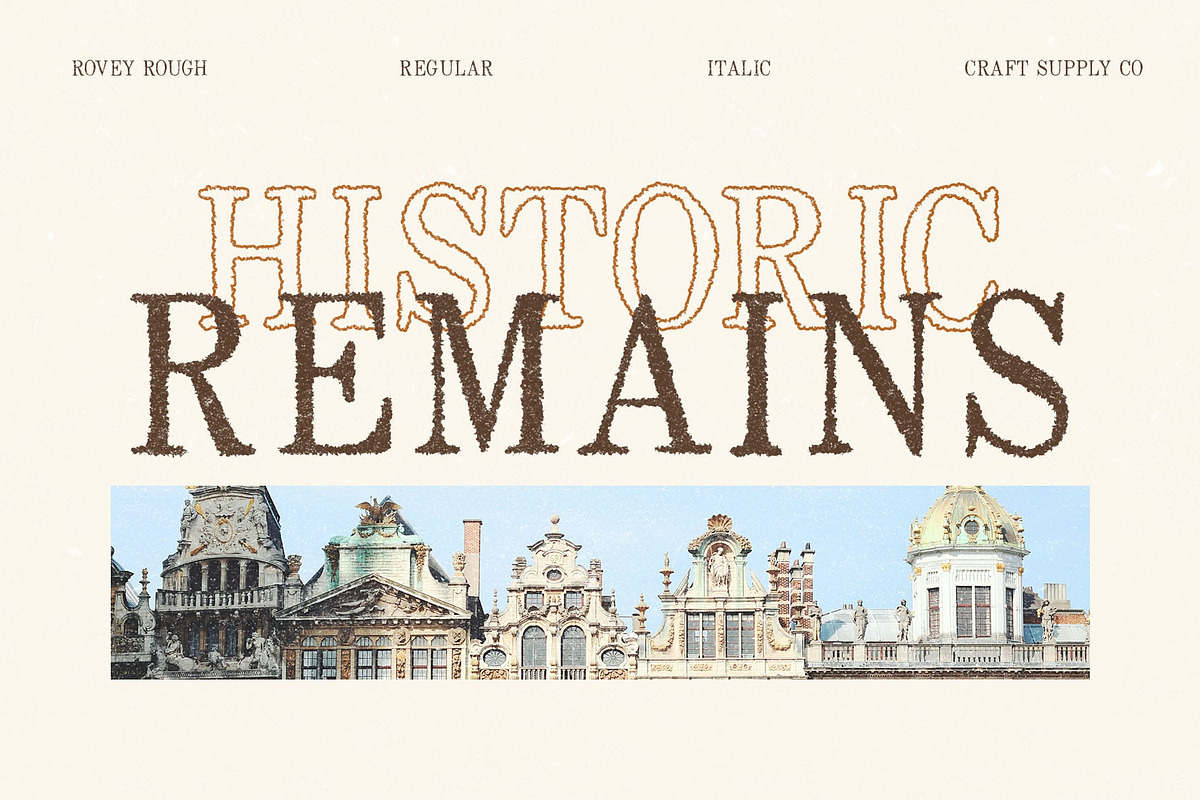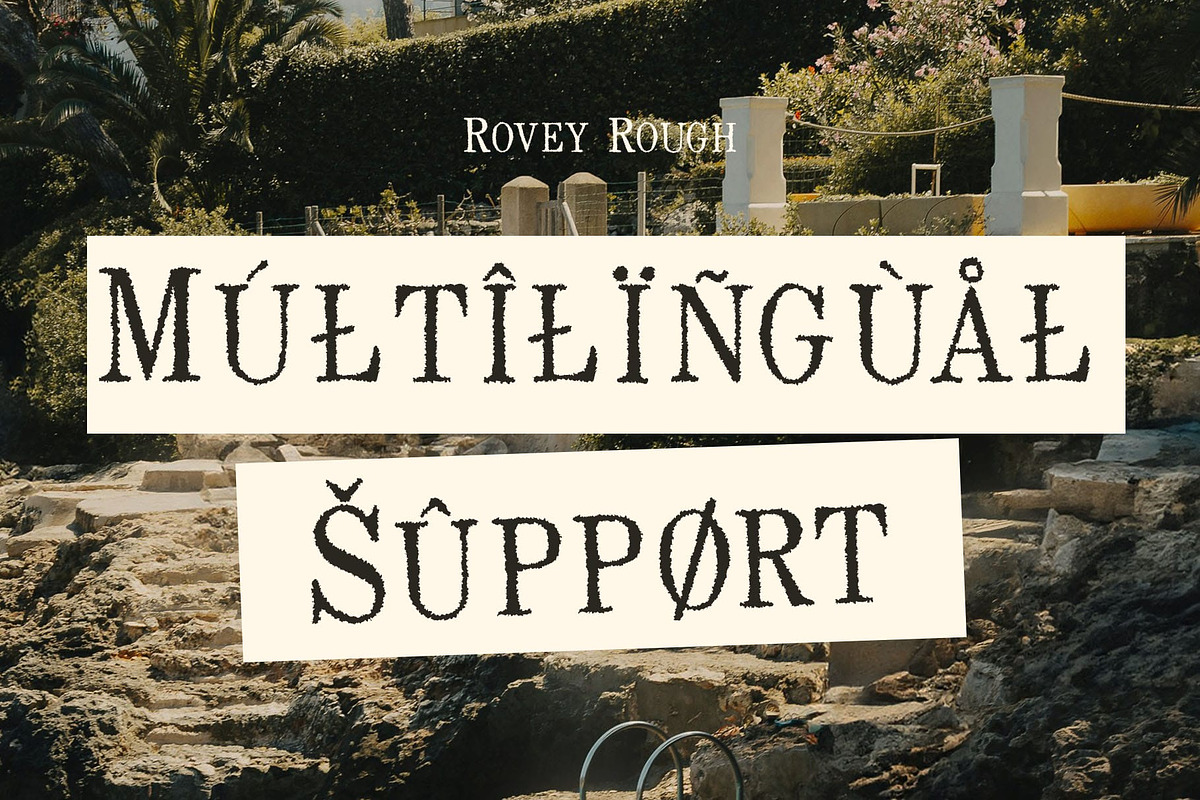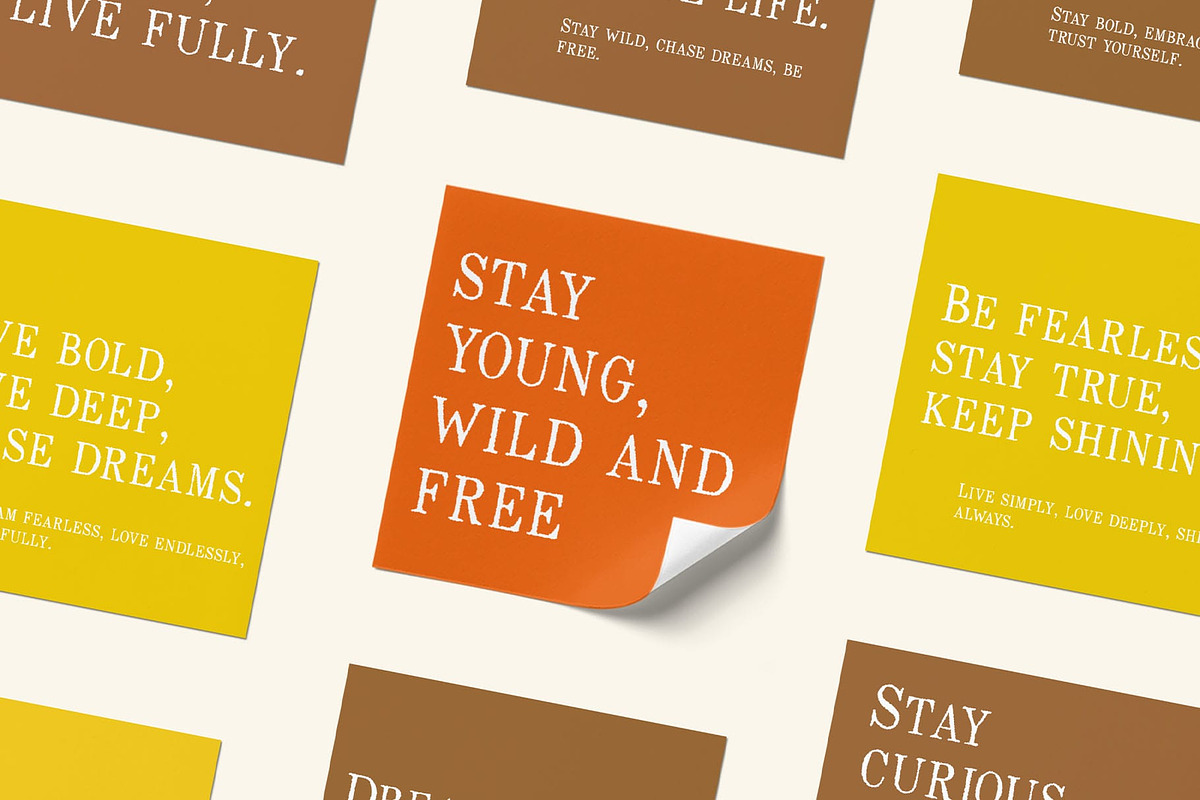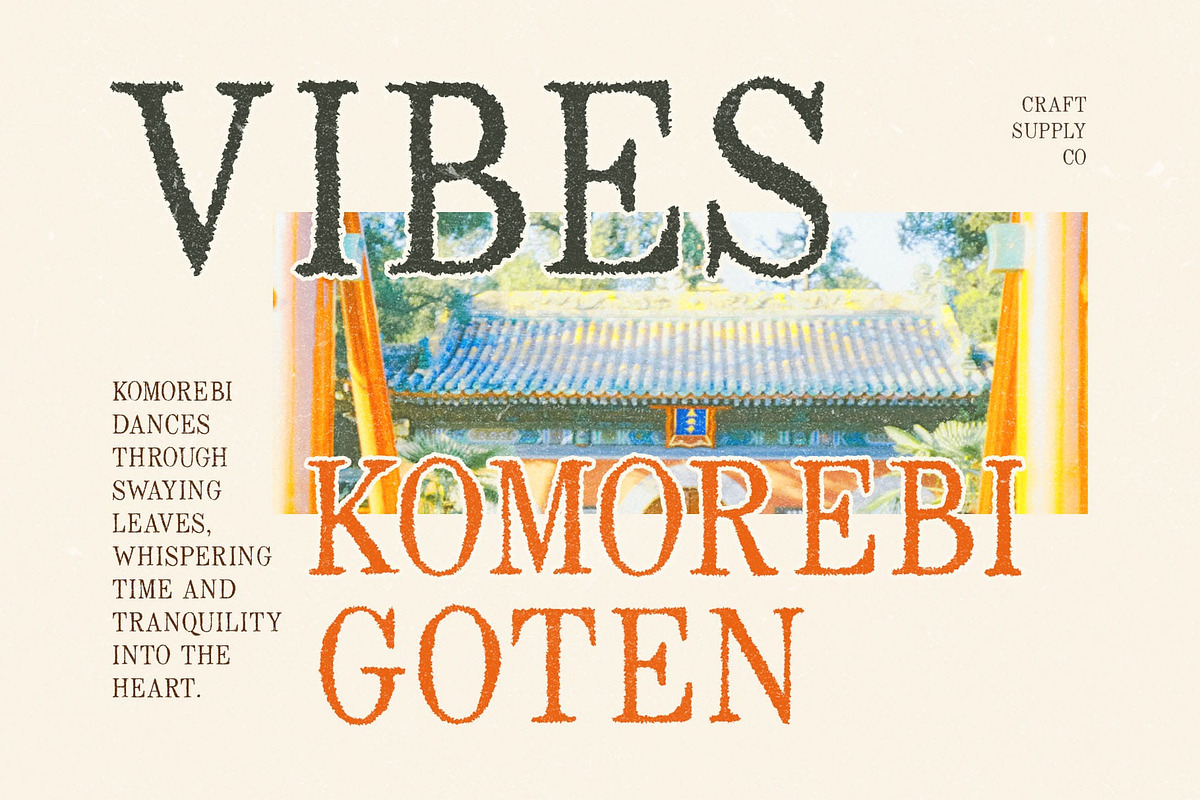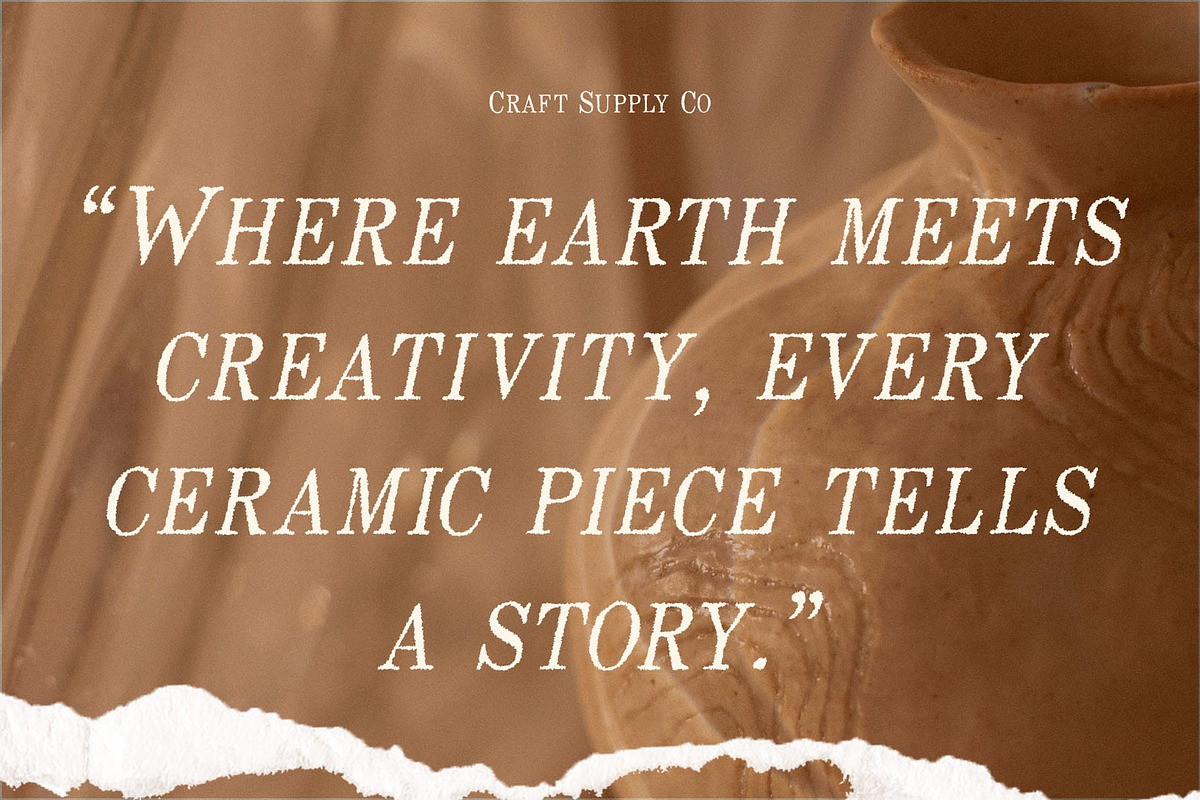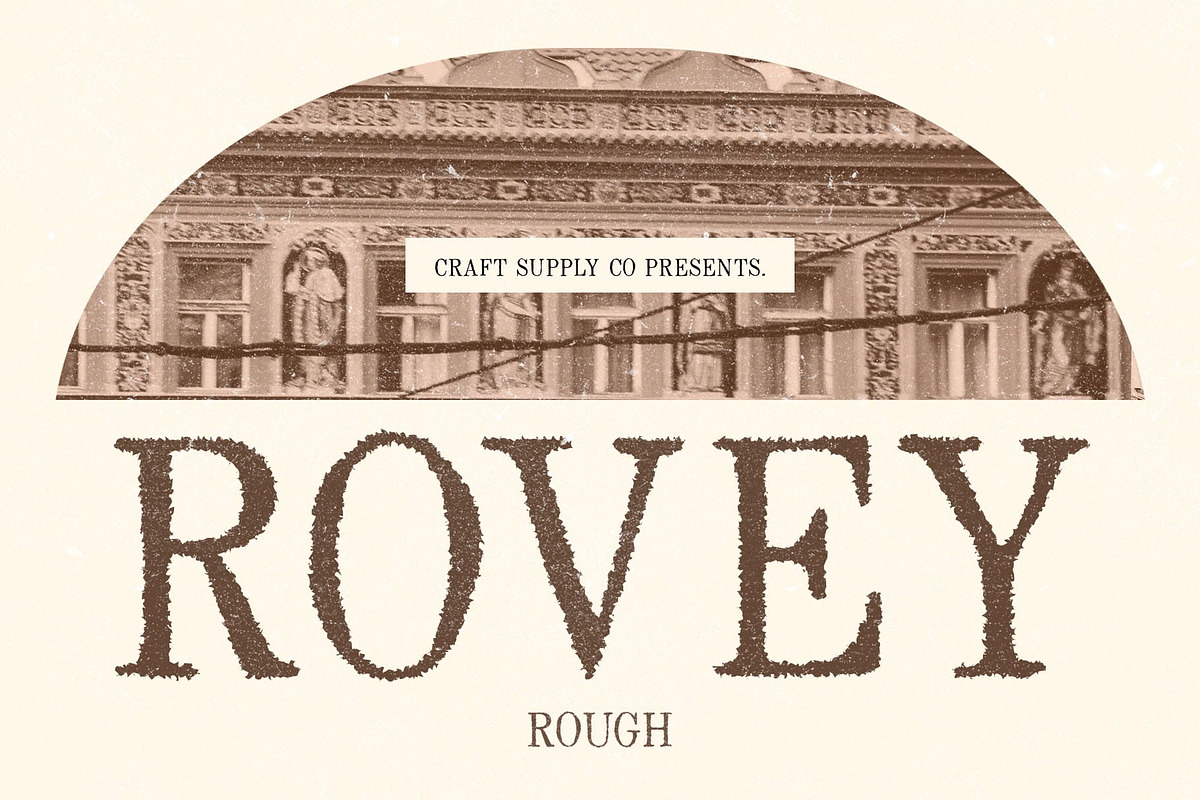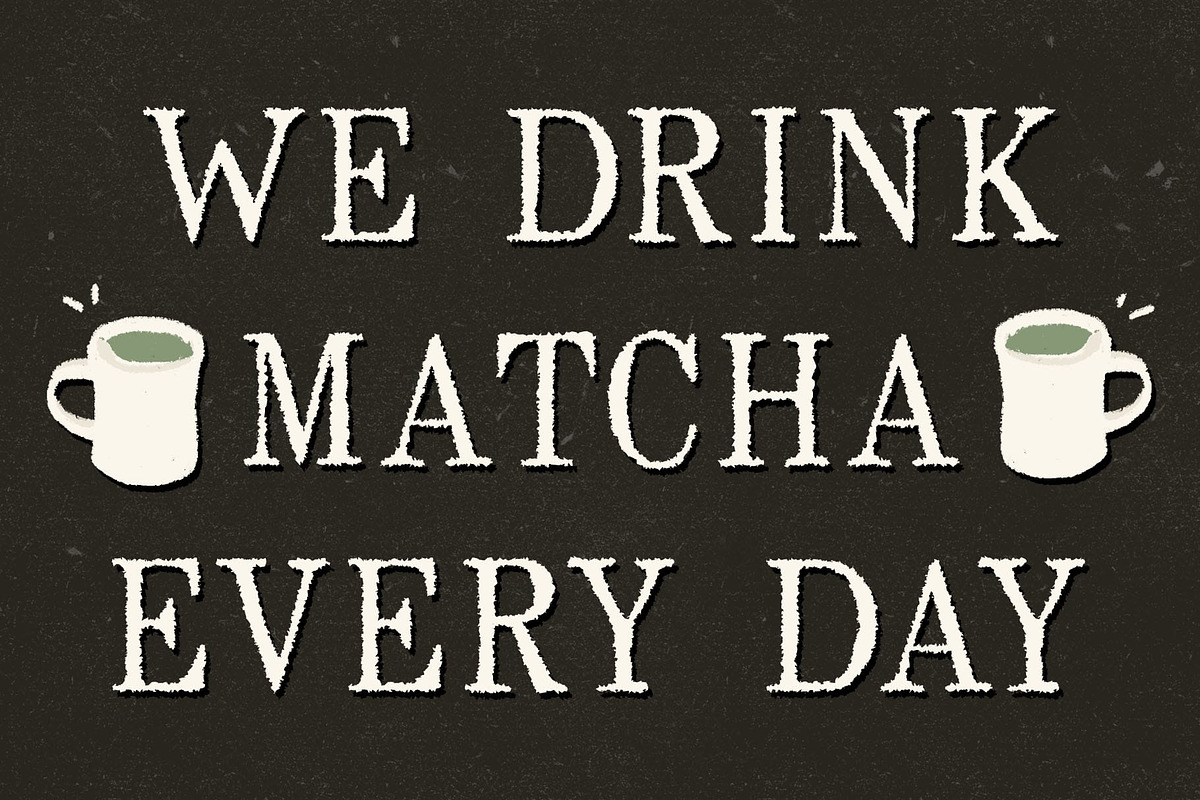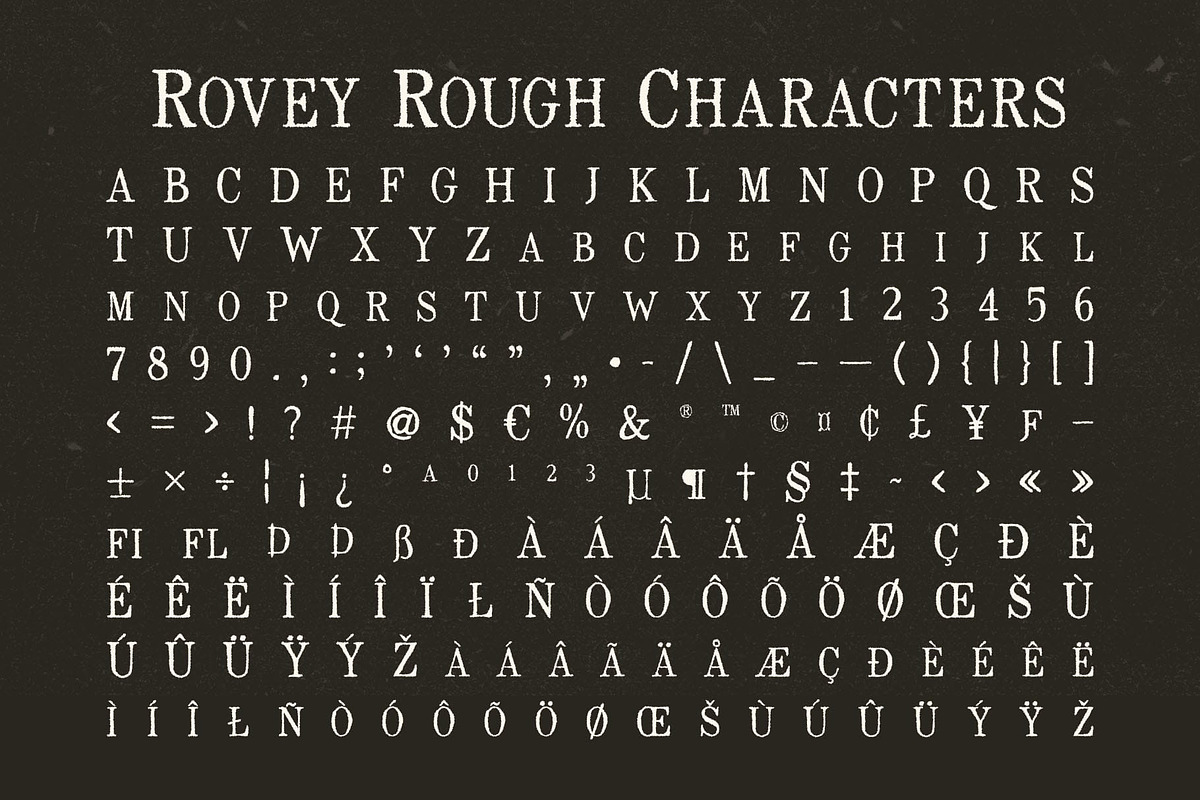
Rovey Rough
Rovey Rough Font: Timeless Elegance with a Textured Edge
A Modern Classic Serif with a Minimalist Touch Rovey Rough is a modern classic serif font that blends clean lines with sophisticated elegance. Designed with balanced proportions, subtle contrast, and sharp yet simple serifs, it delivers a refined and professional look. The minimalist approach makes it ideal for luxury branding, high-end editorials, and premium design projects, ensuring a polished and stylish presence.
Rough Texture for a Vintage and Authentic Feel The rough effect gives Rovey Rough a distinctive, organic texture, adding a sense of natural imperfection and handcrafted charm. This subtle distressing creates a vintage, rustic, or letterpress-inspired aesthetic, making it perfect for designs that require a classic yet unique personality. Whether used for branding, packaging, or typography, this rough detail enhances the font’s authentic and artisanal appeal.
Ideal for Luxury Branding and Editorial Excellence Rovey Rough’s versatile and sophisticated character makes it a perfect fit for premium packaging, classic logos, and editorial typography. It brings a bold yet elegant presence to fashion branding, boutique designs, and creative layouts, adding a sense of exclusivity and prestige. The textured refinement allows it to stand out while maintaining a professional and timeless look.
- Rovey Rough Regular
- Rovey Rough Italic